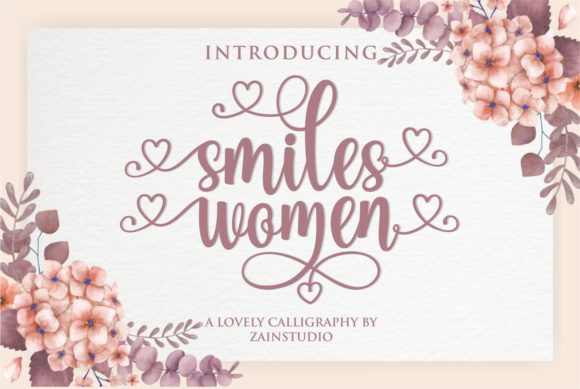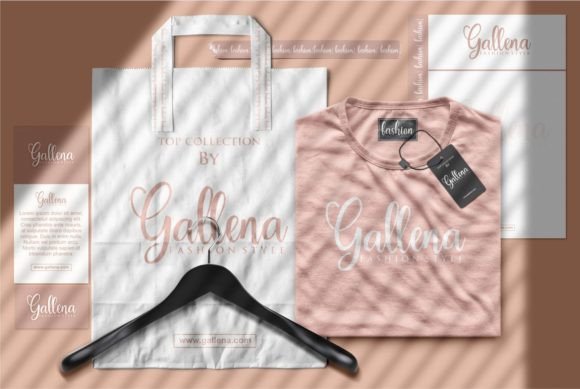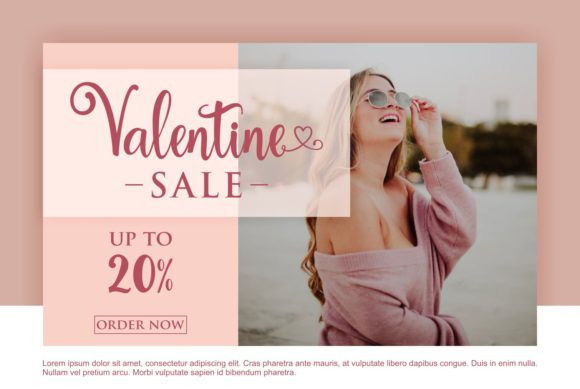
Smiles Women Font
Smiles Women is a modern calligraphy script featuring heart-themed swashes. This lovely and romantic script will add a decorative touch in an instant.